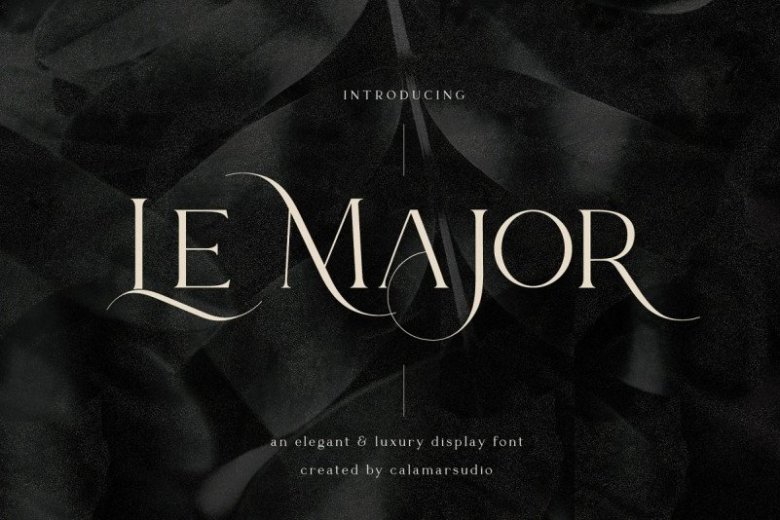
Le Major Font
This typeface is a modern high contrast antiqua with well-defined, recognizable features. Made from font designer named Calamar Studio. It’s perfect match for logotypes, branding, wedding monograms and invitations, blog headlines and much more.